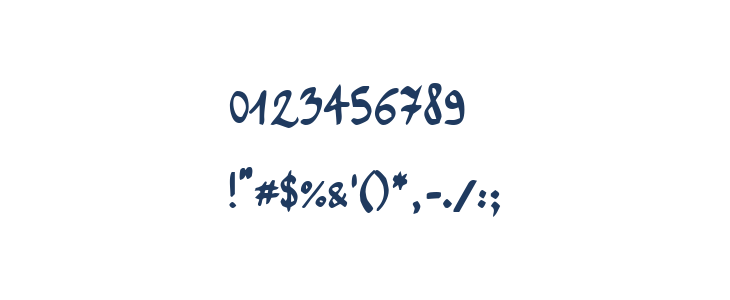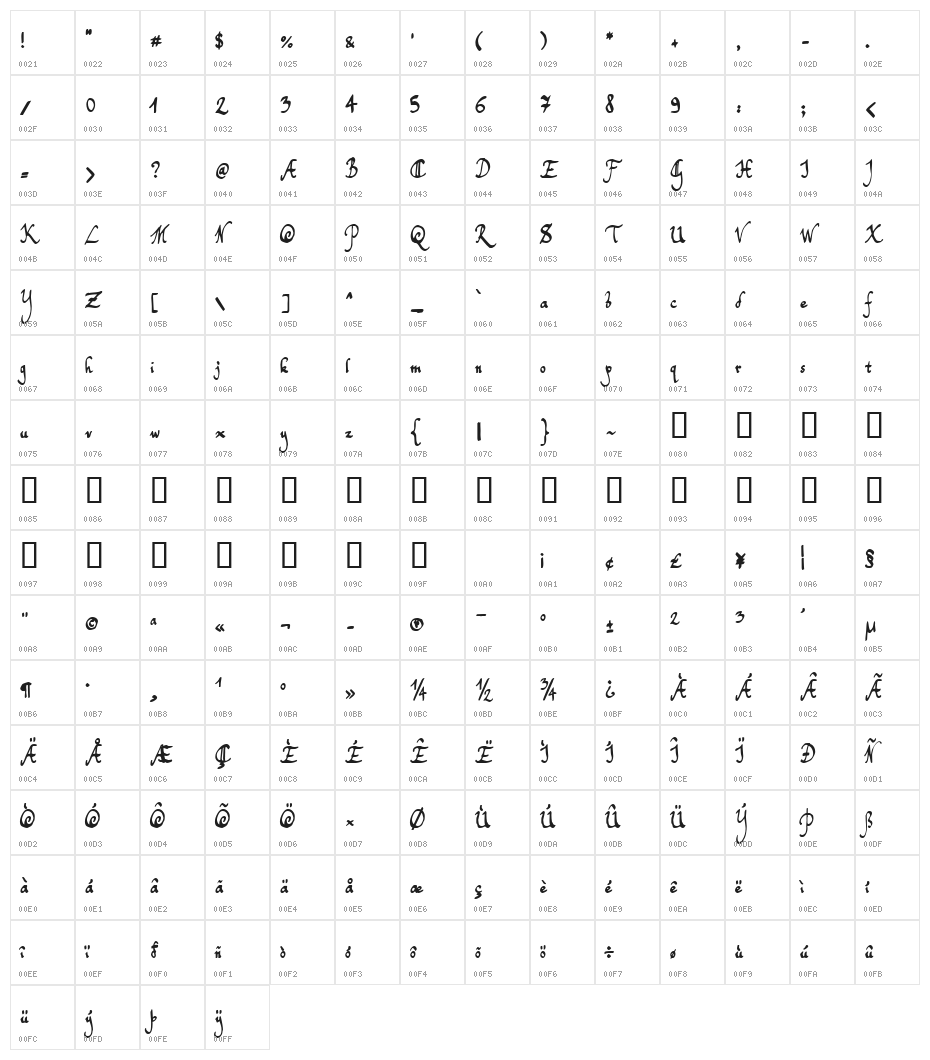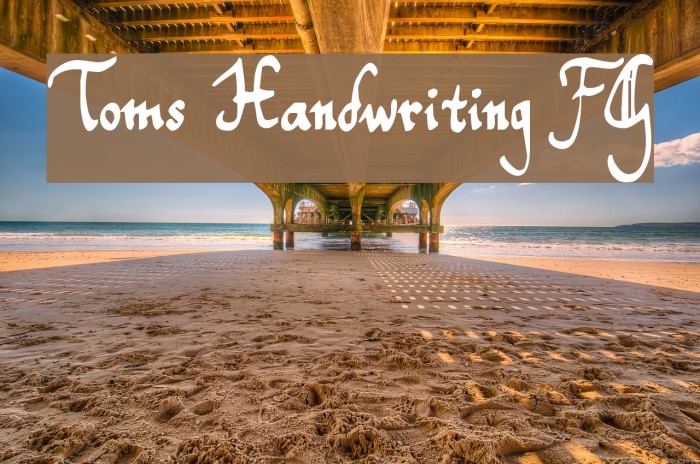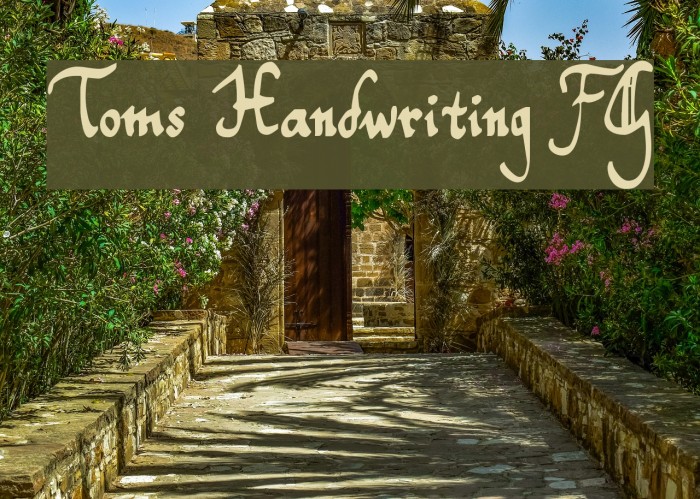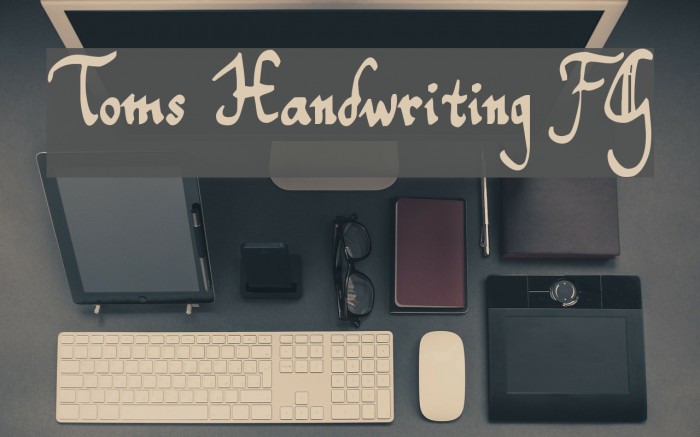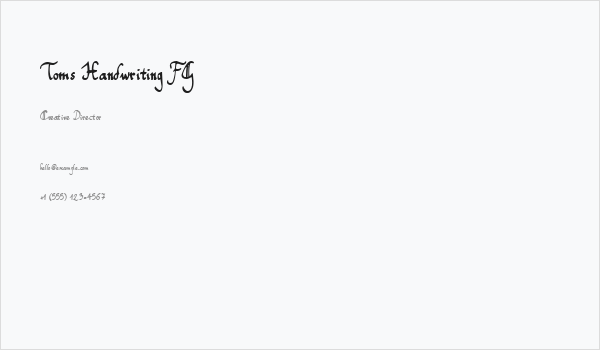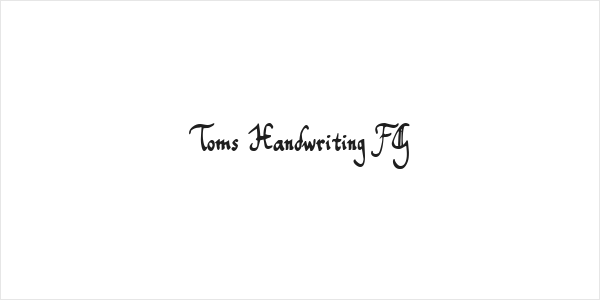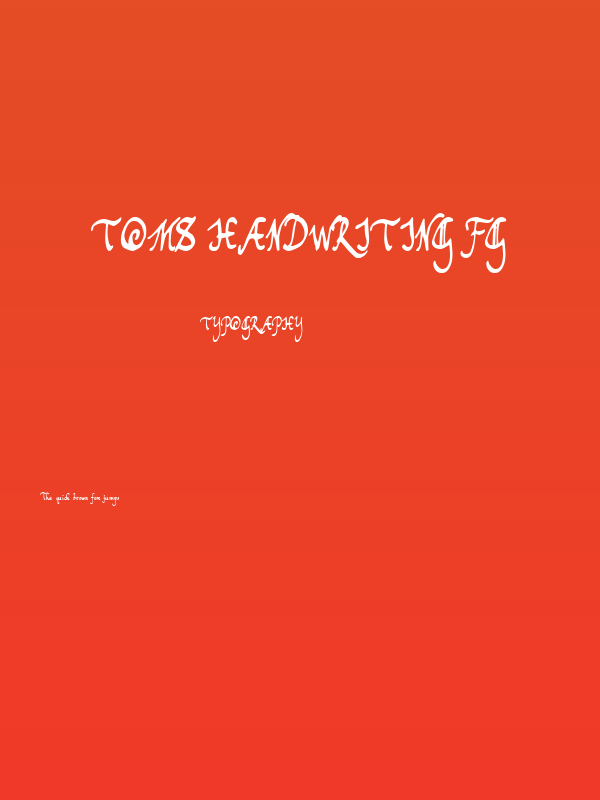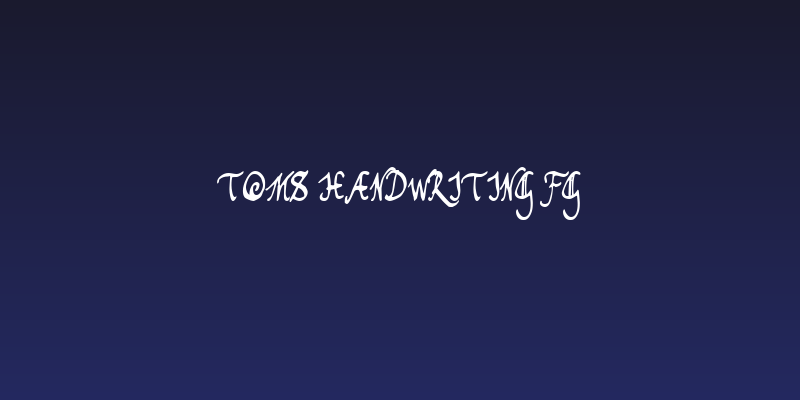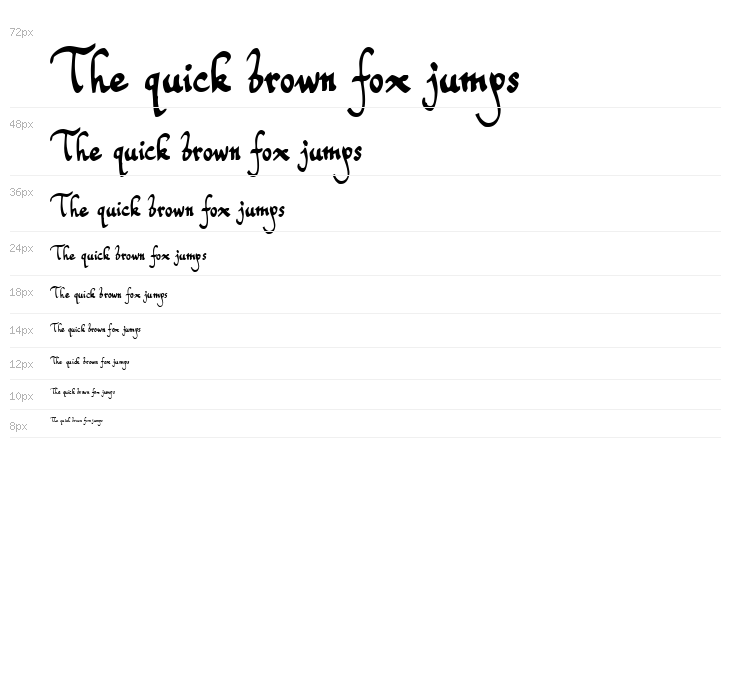
Toms Handwriting FG Font
Toms Handwriting FG Description
This font features a distinctive handwritten style with a playful and artistic flair. The uppercase letters exhibit a unique blend of curves and angles, giving them a dynamic and expressive appearance. The lowercase letters maintain a consistent flow, enhancing the handwritten feel. Numbers and special characters are crafted with the same attention to detail, ensuring a cohesive look throughout. The overall design is reminiscent of personal handwriting, making it suitable for projects that require a personal touch or a creative, informal vibe.
| Proposed Projects | Ideal for greeting cards, personal invitations, creative posters, and artistic branding. |